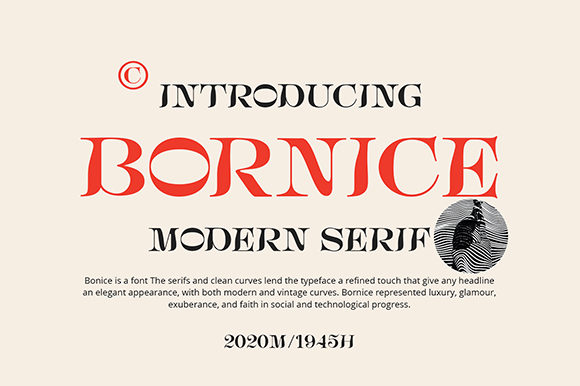
Behold, Bornice Font, the Gateway to Vintage Charm and Timeless Elegance
Immerse yourself in the world of Bornice Font, a stunning display font that radiates modern aesthetics with a touch of vintage allure. Born from the creative genius of Damelev, this font is the epitome of uniqueness and innovation. Unleash your creativity and embark on a journey to transform your designs into captivating masterpieces.
Bornice Font: A Symphony of Elegance and Versatility
With Bornice Font, elegance and versatility intertwine to create a masterpiece. Its carefully crafted characters exude a timeless charm that transcends trends, making it the ideal choice for a wide range of creative projects. From striking logos that command attention to eye-catching T-shirt designs that speak volumes, Bornice Font is your trusty companion, guiding you towards design excellence.
Bornice Font: The Perfect Canvas for Creative Expression
Unleash your imagination and let Bornice Font become your canvas of creative expression. Its versatility knows no bounds, allowing you to effortlessly create captivating invitations that leave a lasting impression, packaging designs that allure customers, and magazine layouts that captivate readers. Bornice Font is the key to unlocking your design potential and crafting masterpieces that resonate with your audience.
Bornice Font: A Timeless Classic for Every Occasion
Whether you're crafting wedding invitations that evoke romance and elegance or greeting cards that convey heartfelt sentiments, Bornice Font is your steadfast companion. Its timeless appeal ensures that your designs remain relevant and cherished for years to come. Embrace the power of Bornice Font and create designs that stand the test of time, leaving an indelible mark on the hearts of your recipients.
Bornice Font: Your Gateway to Design Excellence
Experience the transformative power of Bornice Font and elevate your designs to new heights. Its carefully crafted characters and vintage charm will captivate your audience, leaving them mesmerized by your creations. Step into the world of Bornice Font and unlock a world of possibilities, where your creativity reigns supreme.